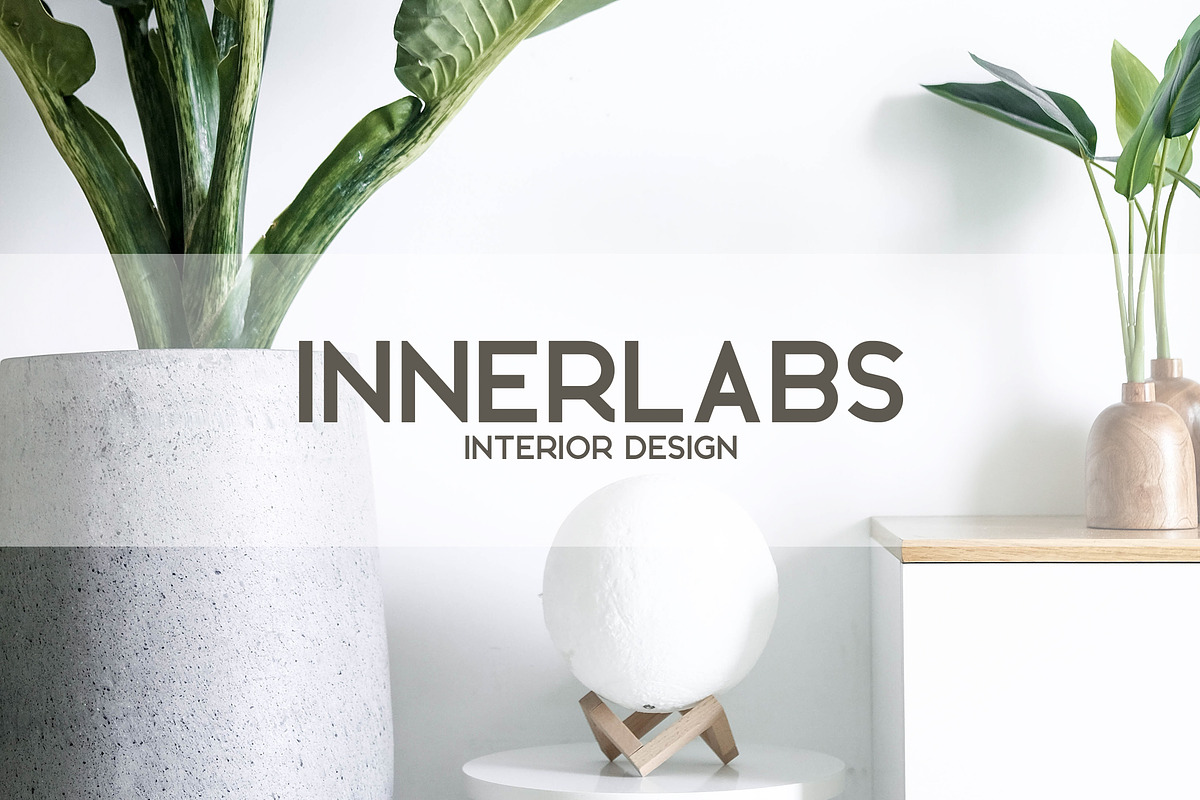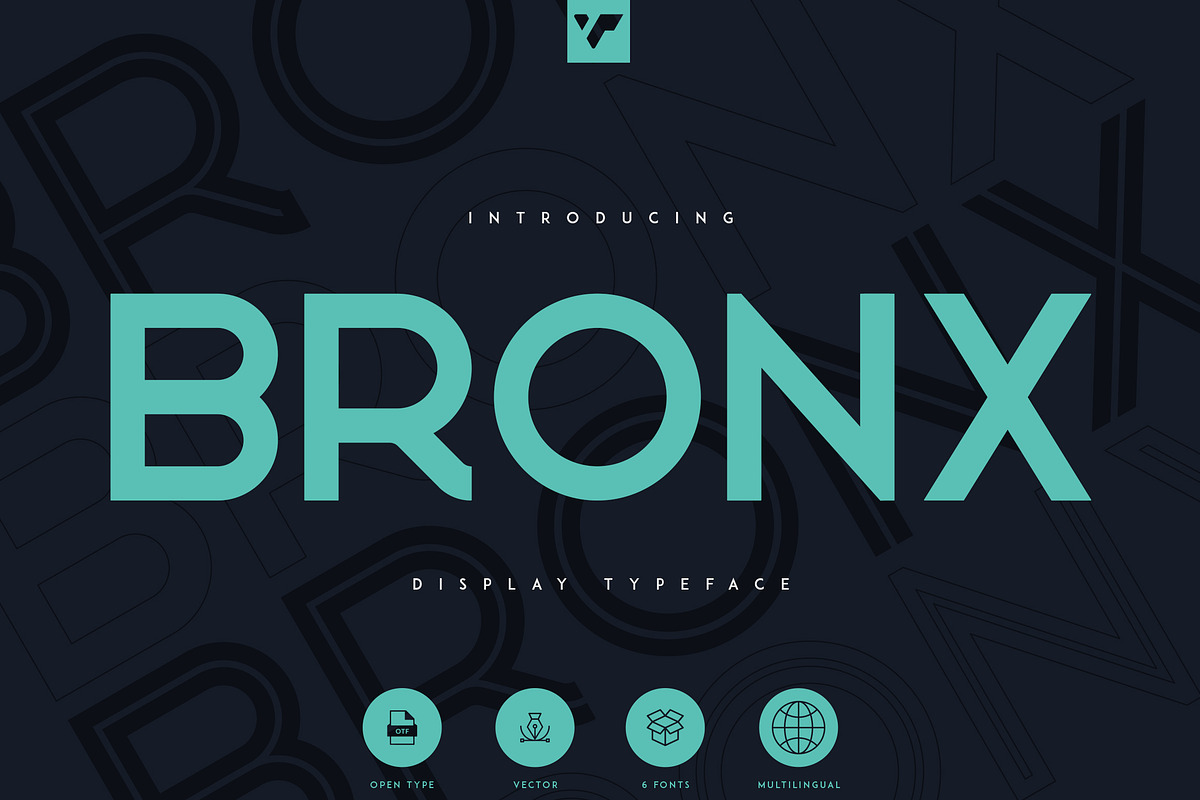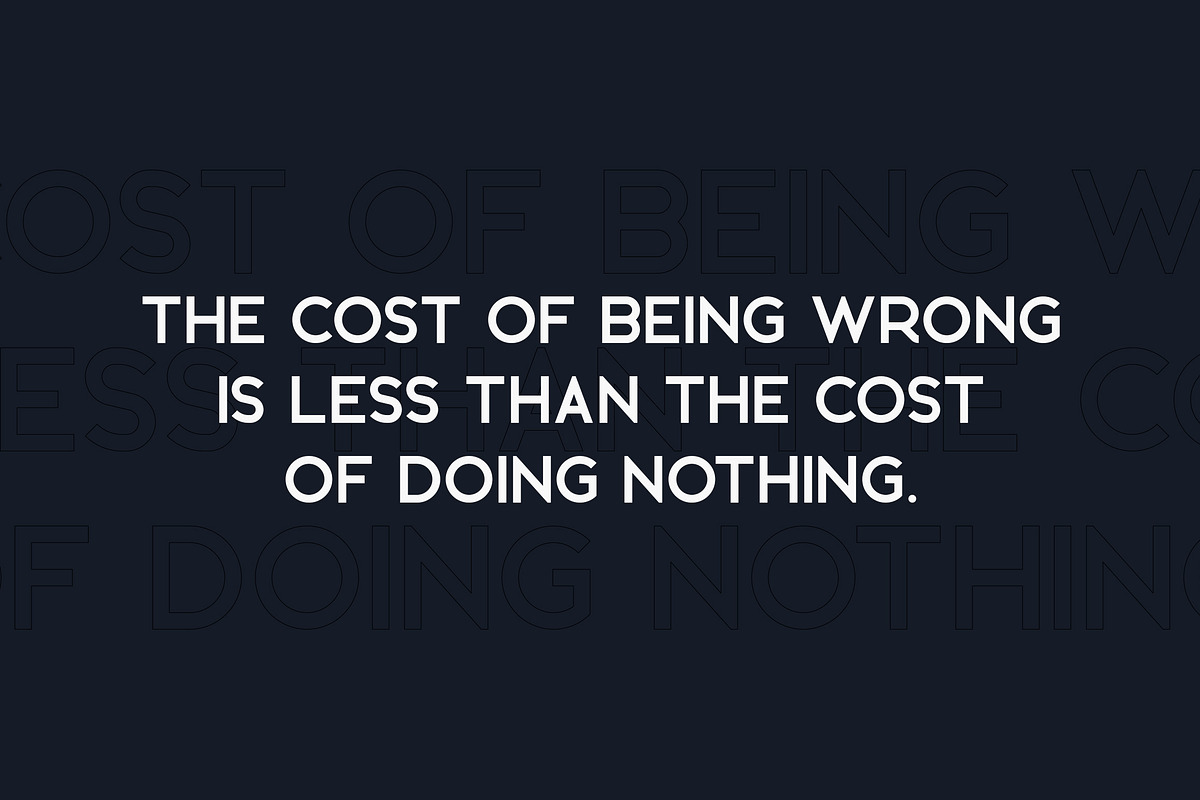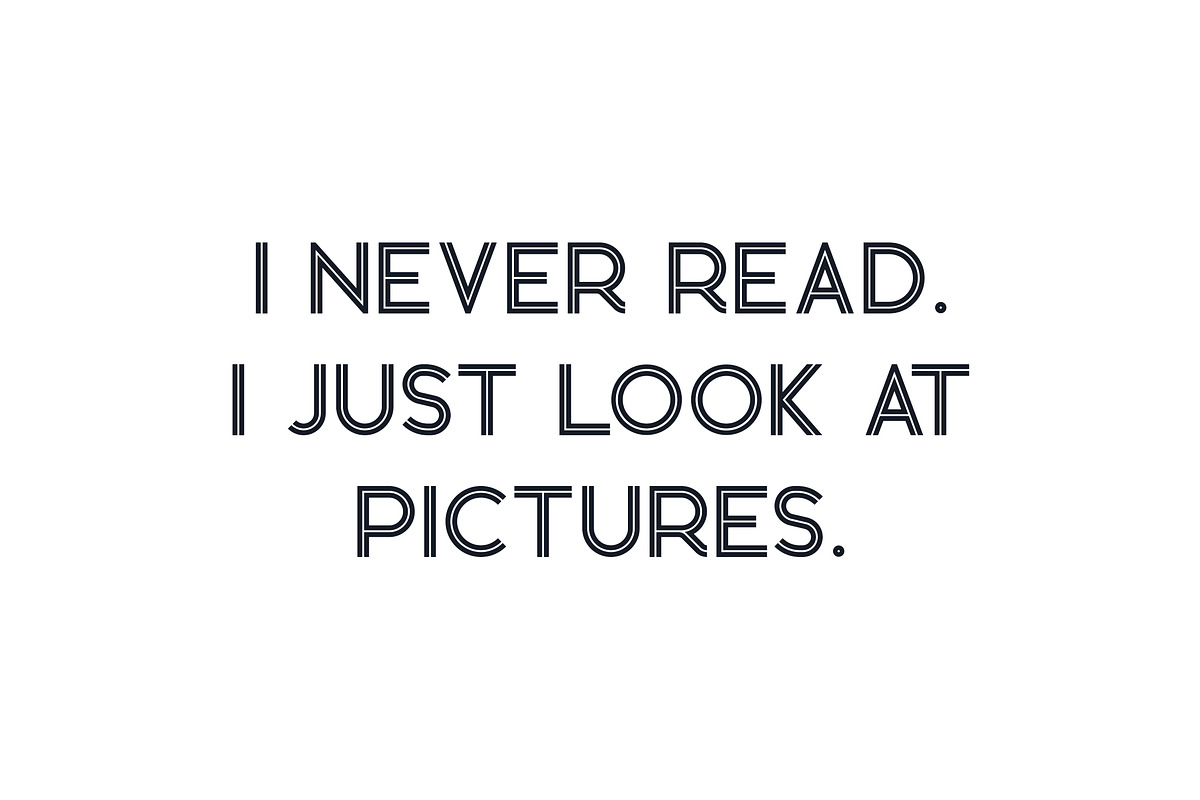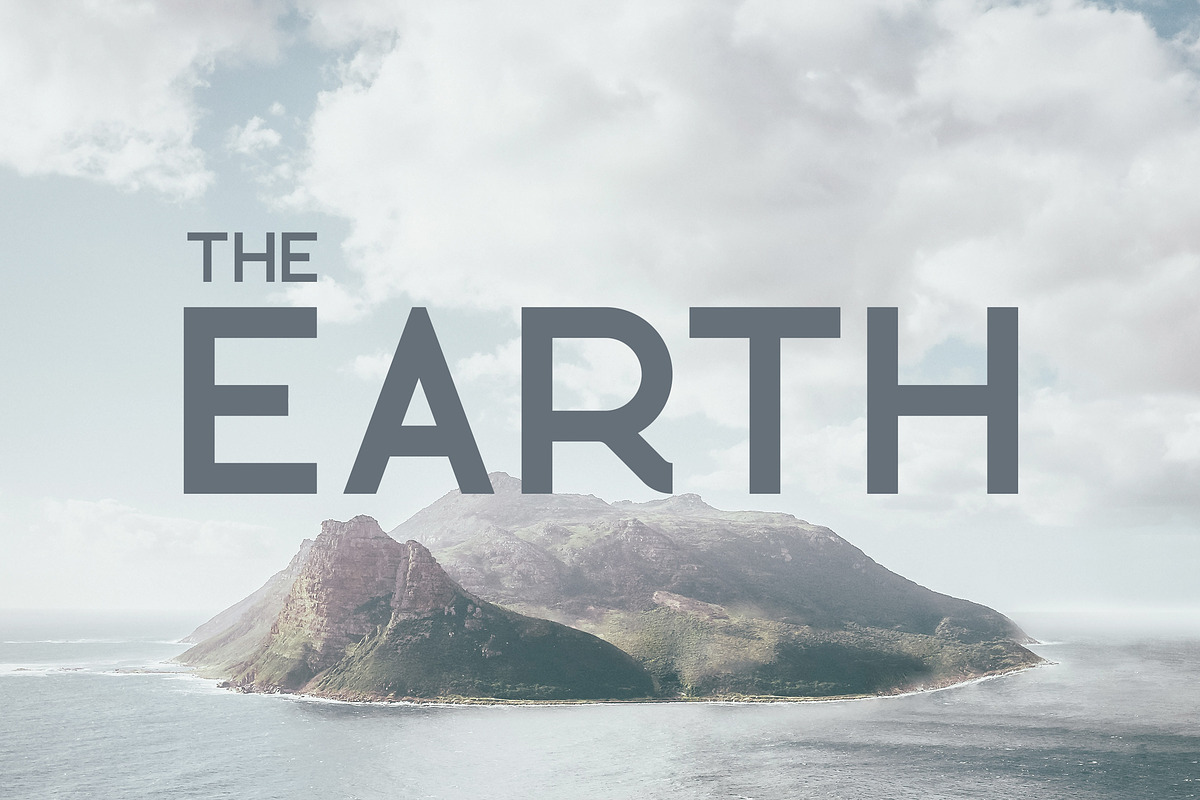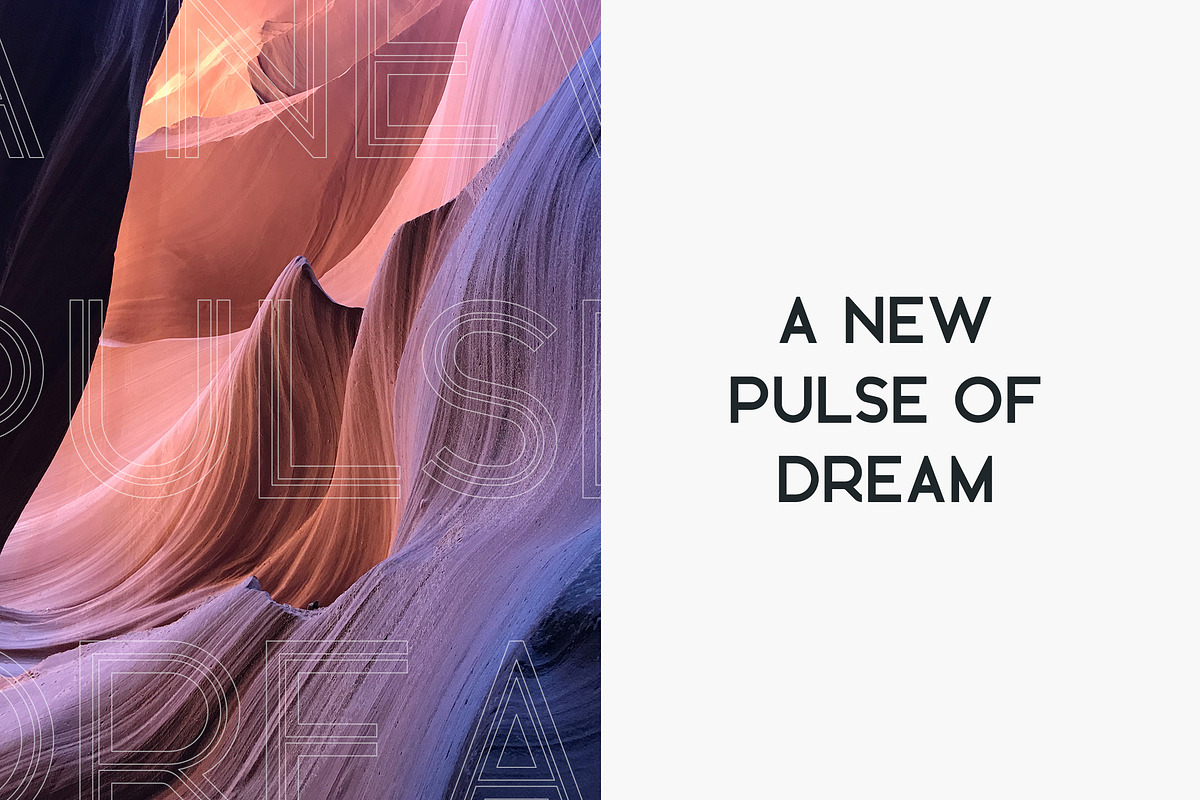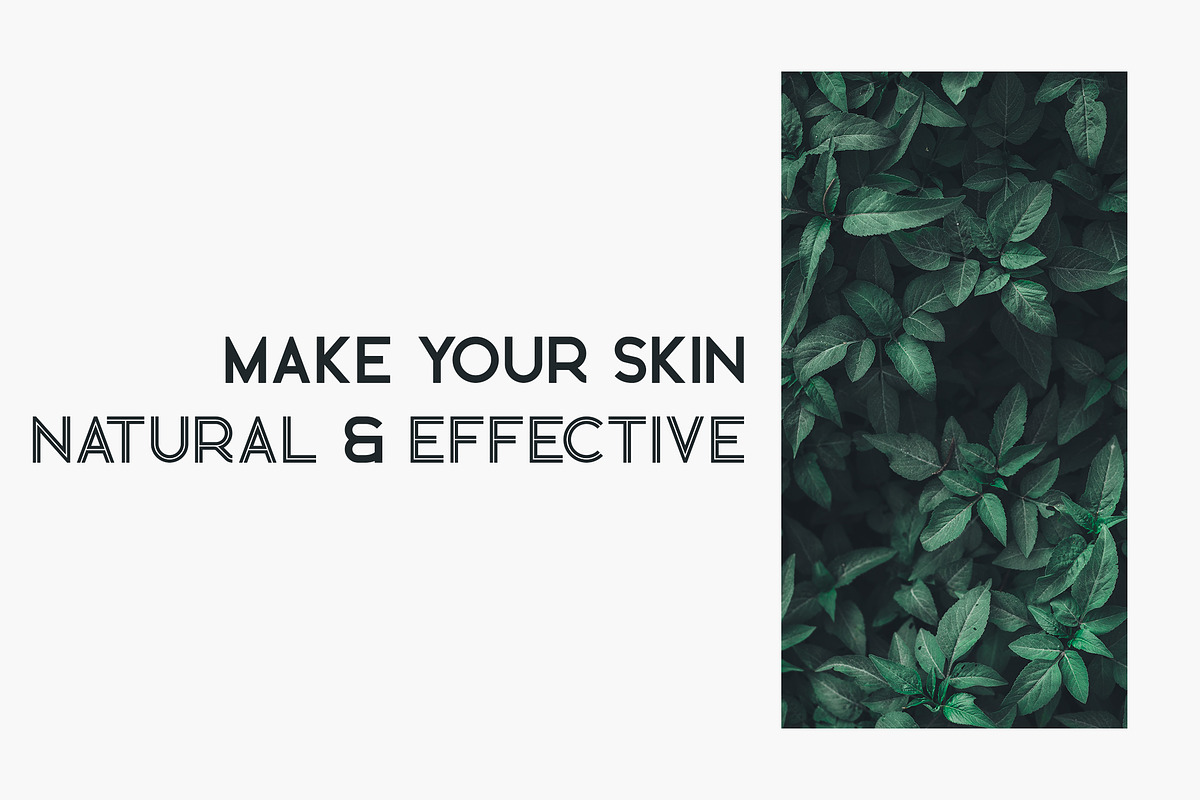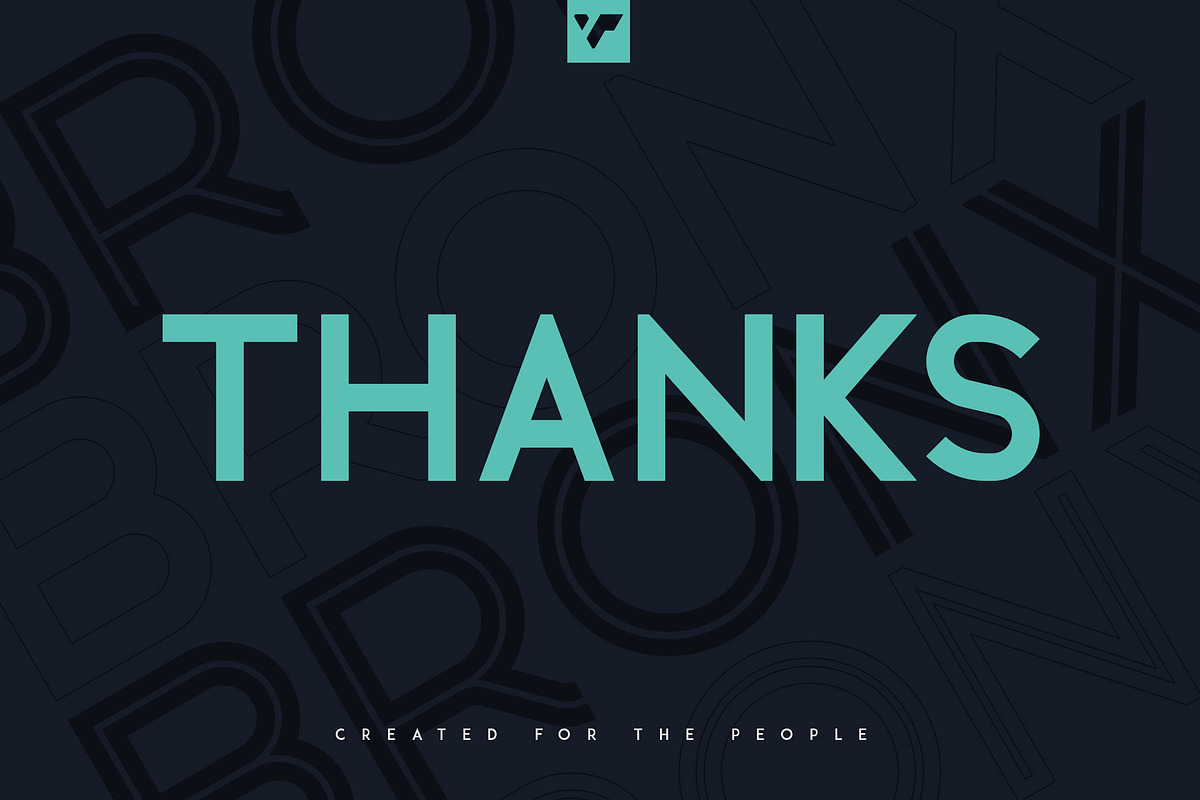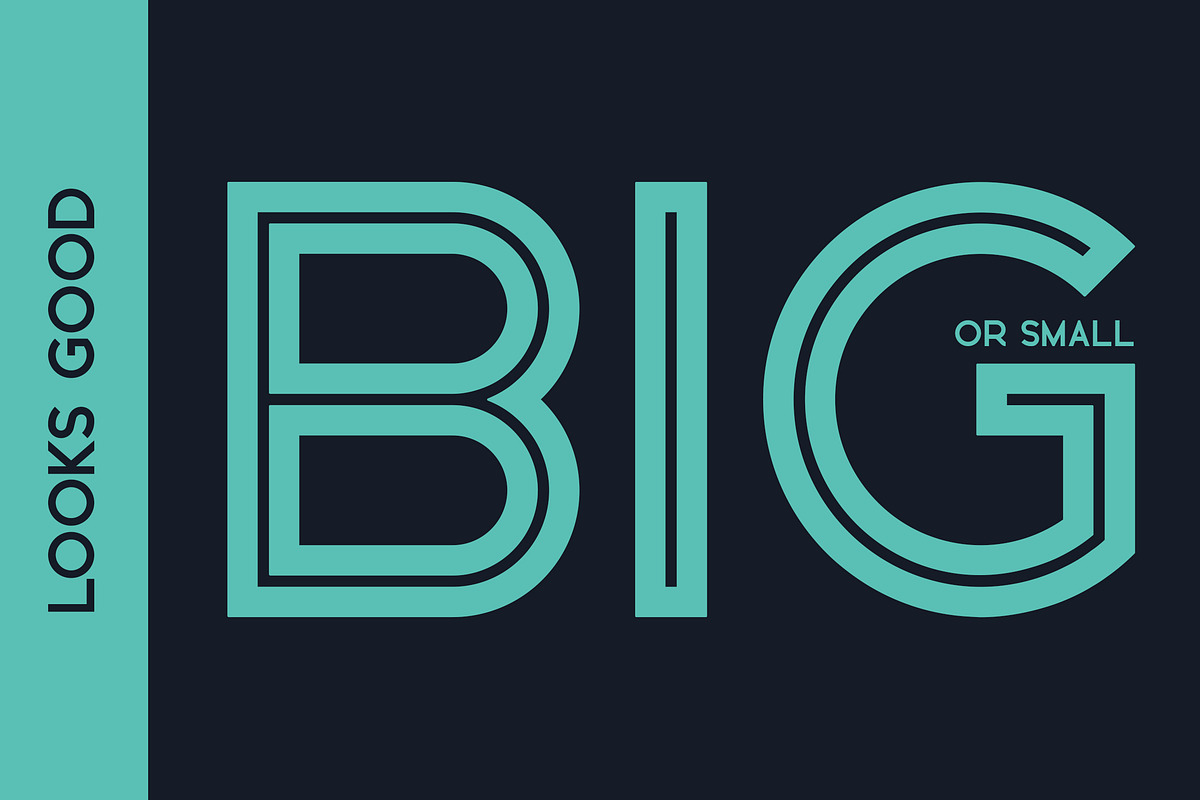
Bronx - Sans Serif typeface 6 fonts
Introducing Bronx - Sans Serif typeface - 6 fonts
Bronx is casual, clean typeface loaded with 6 different styles. Very versatile font that works great in large and small sizes.
Bronx is perfect for branding projects, home-ware designs, product packaging, magazine headers - or simply as a stylish text overlay to any background image.
- Uppercase, numeral, punctuation & Symbol
- Outline
- Inline
- Inline Outline
- Two Lines
- Two Lines Outline